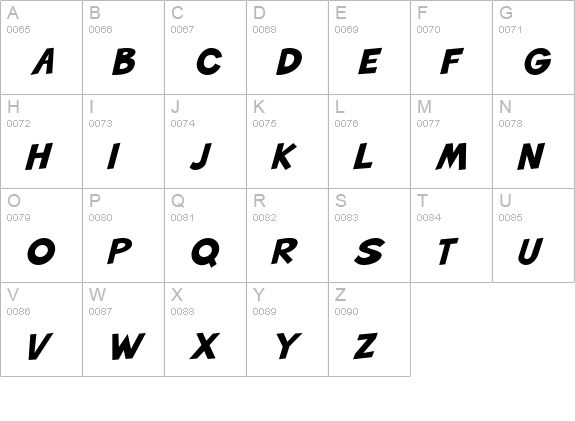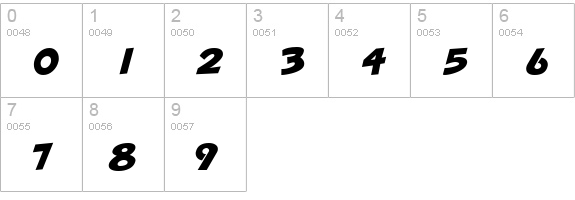
SketchHeavy Italic Font Details
SketchHeavy Italic is a distinctive, italic variant in the SketchHeavy typeface family \xE2\x80\x94 well suited to design and typography projects.
Introducing SketchHeavy Italic, a breathtakingly bold and captivating font that will bring your designs to life with its unique and artistic flair. This font exudes a sense of confidence and strength, making it perfect for eye-catching headlines, attention-grabbing logos, and impactful branding materials. SketchHeavy Italic is a true testament to the power of creativity and imagination. Its hand-drawn and slightly rough edges give it an authentic and organic feel, adding a touch of personality to any project. The italicized style adds a dynamic and energetic vibe, making it a great choice for projects that need a sense of movement or excitement. What sets SketchHeavy Italic apart is not only its stunning aesthetics but also the fact that it is completely free! Yes, you read that right. This incredible font is freely available to download at FontsMarket.com, allowing you to unleash your creativity without any limitations. Whether you're a graphic designer, a creative entrepreneur, or simply an enthusiast looking to add a touch of artistic flair to your projects, SketchHeavy Italic is the perfect companion. With its wide range of glyphs and special characters, SketchHeavy Italic offers endless possibilities for customization. You can effortlessly create unique and visually stunning designs that stand out from the crowd. Its versatility makes it suitable for a variety of applications, from print materials such as posters and brochures to digital platforms like websites and social media graphics. So why wait? Take advantage of this incredible opportunity to enhance your designs with SketchHeavy Italic. Download it for free at FontsMarket.com and experience the creative freedom it brings to your projects. Let your imagination run wild and watch as your designs come to life with this extraordinary font.